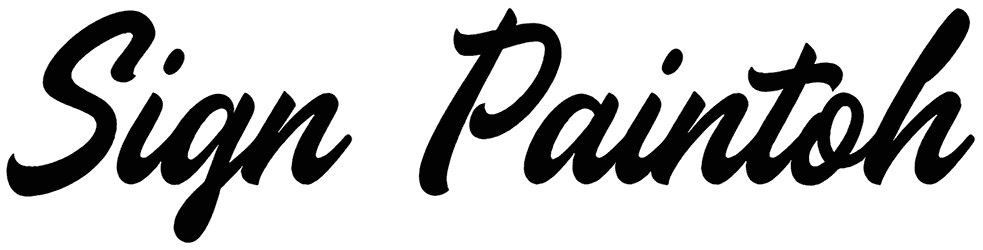
Sign Paintoh Font
With a vintage and old outward appearance, it conveys a warm vibe to your audience and wins their hearts. This old school font, which is called Sign Paintoh, includes bold and classic letters that can be a sweet showcase…
With a vintage and old outward appearance, it conveys a warm vibe to your audience and wins their hearts. This old school font, which is called Sign Paintoh, includes bold and classic letters that can be a sweet showcase for many novel ideas. You can count on this sign font to promote your projects, like postcards, invitations, logos, or whatnot, with an appealing mood.